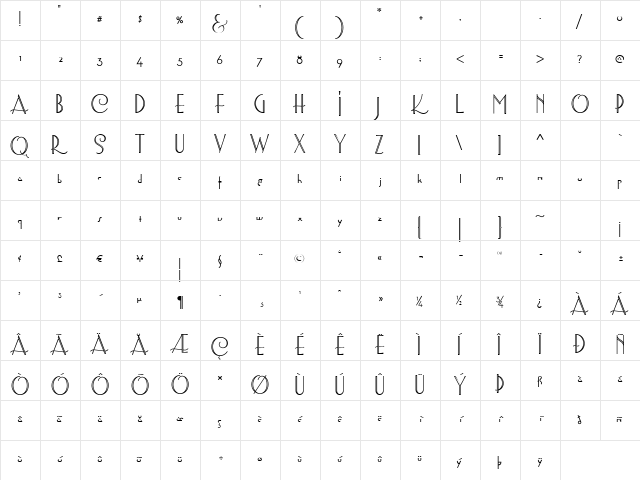
Astoria Titling Nf Regular
Design Context for Astoria Titling Nf Typeface
Astoria Titling Nf is a composed and adaptable typeface that performs quietly and consistently across a wide range of design contexts.